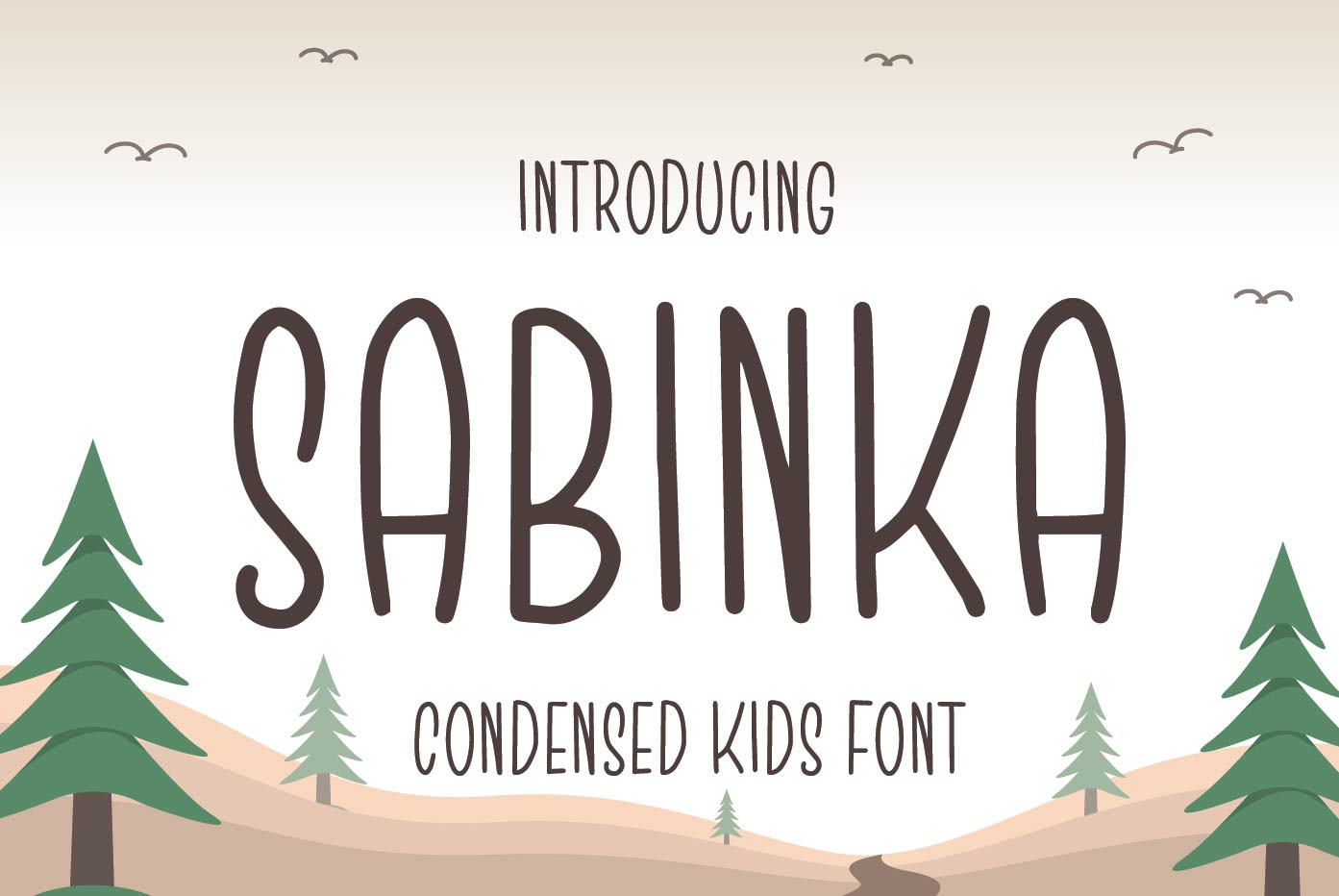
Sabinka - Fun Condensed Font
Introducing Sabinka, a fun condensed fantasy font with bouncy clean shapes. Sabinka is an all-caps font that easy to use as the decoration to make design more beautiful. Sabinka suitable for children's merchandise, t-shirt, books, poster, title, quotes, and many more!